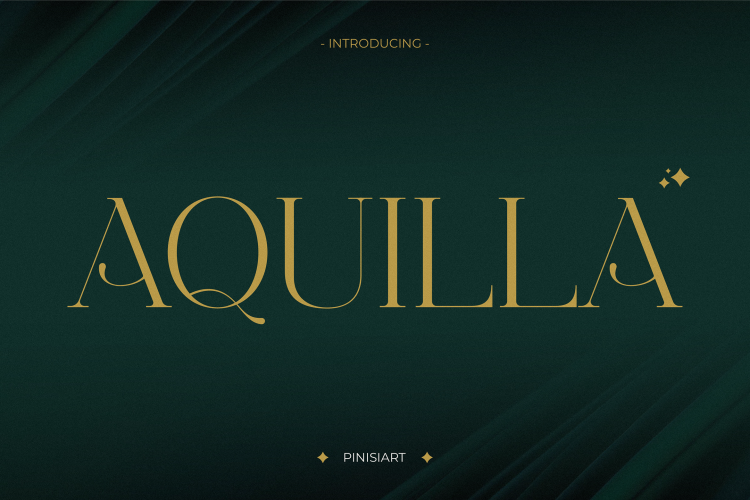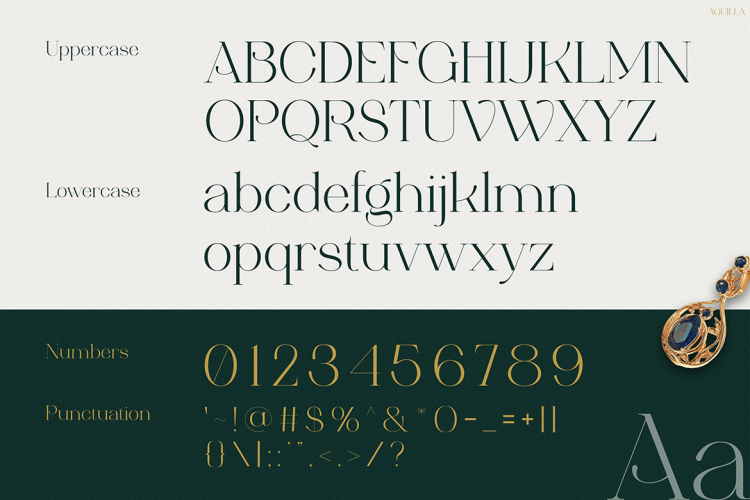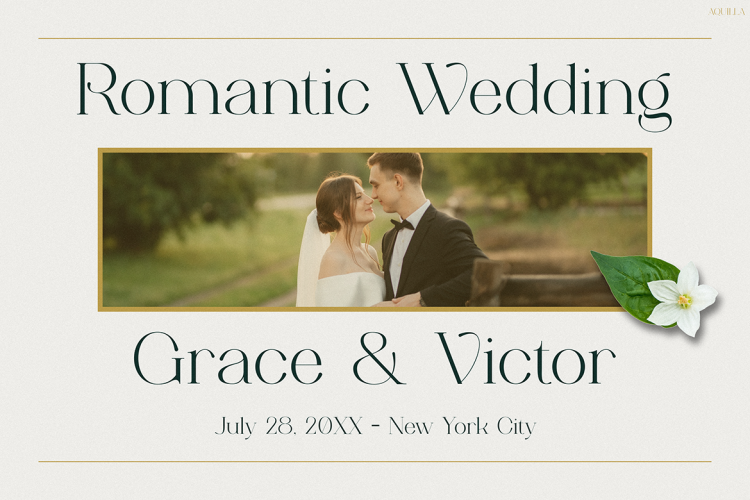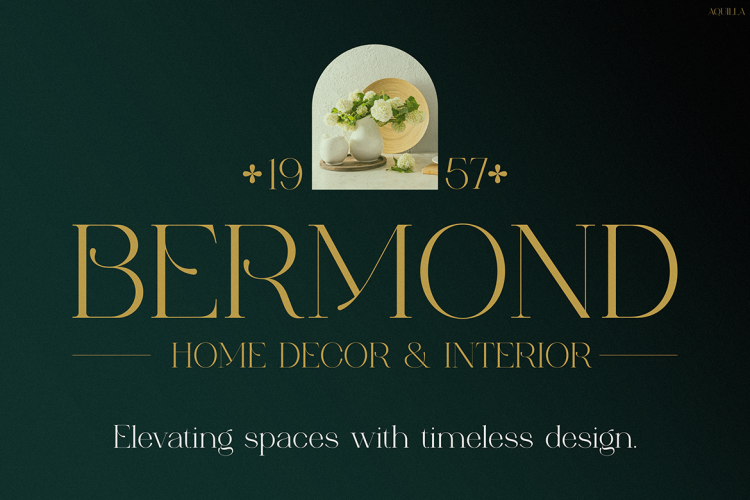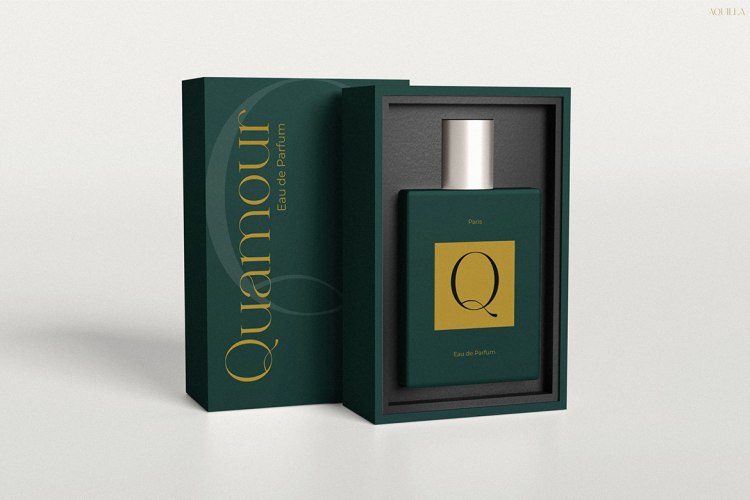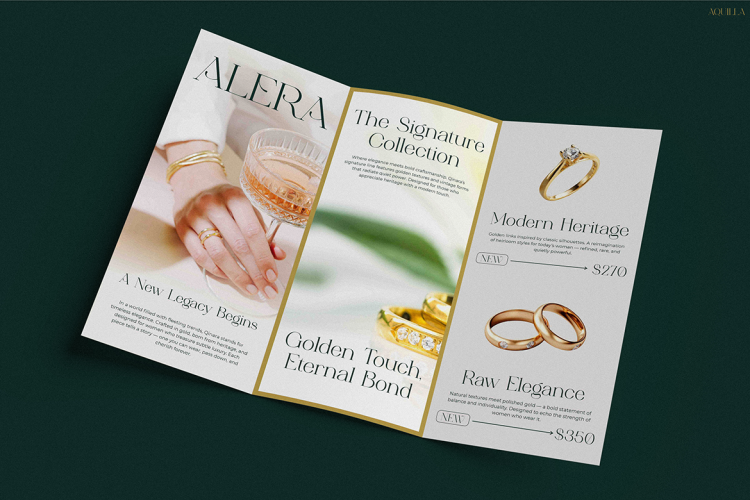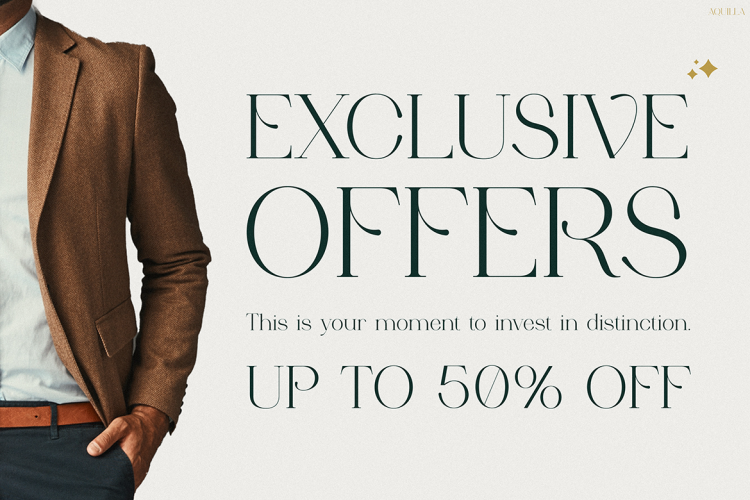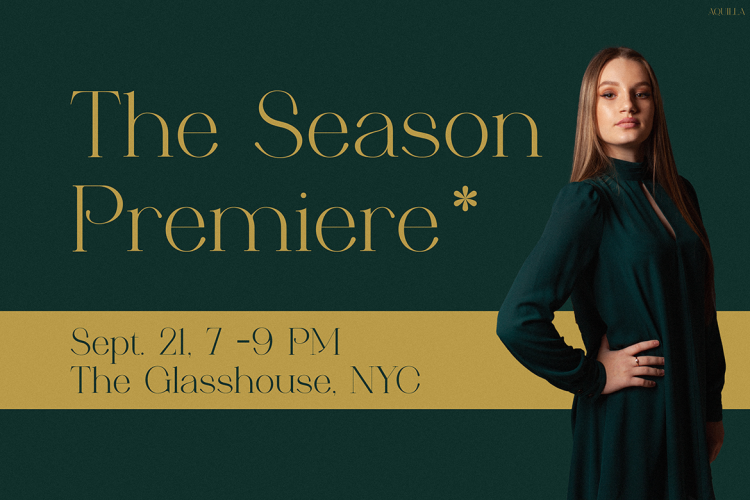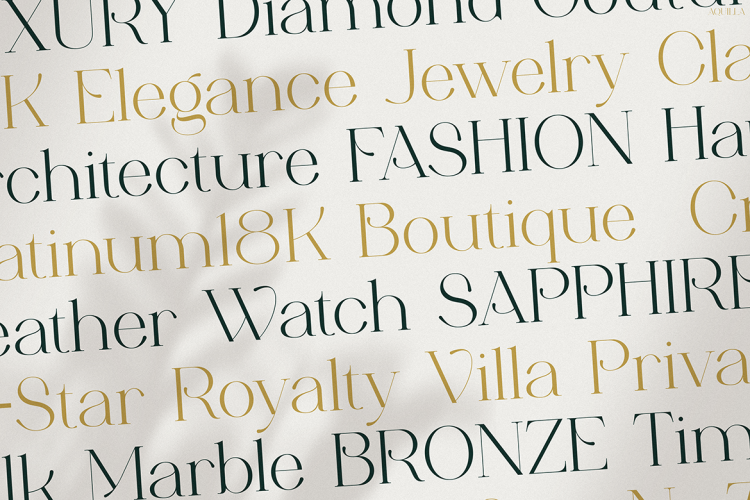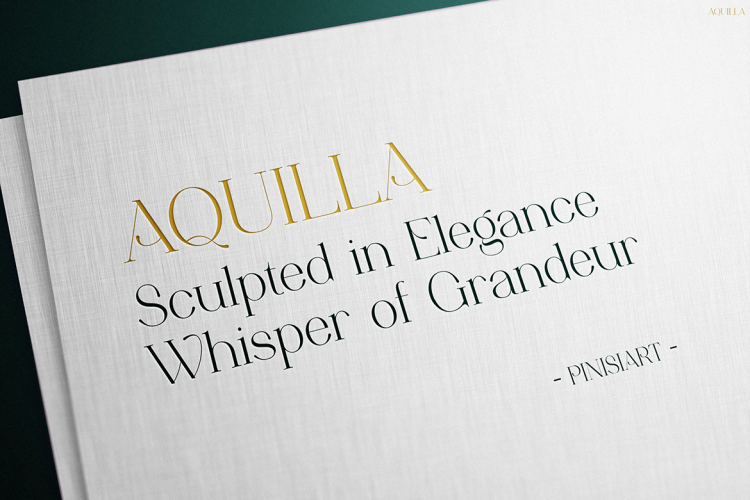
Instagram Font Aquilla โ Timeless Elegance in Every Letter
Instagram Font Aquilla is not just a typefaceโit is a statement of style and refinement. Each letter is carefully crafted, and therefore the font radiates beauty and balance. With high-contrast details, smooth curves, and sleek serifs, it creates an elegant harmony on every page. Moreover, its design blends classical influence with modern simplicity, making it timeless yet fresh. As a result, Aquilla brings a premium feel to branding, invitations, packaging, and social media graphics.
In addition, the font works equally well in digital spaces and print projects. It scales beautifully, whether on small Instagram story text or large billboard campaigns. Because of this flexibility, it offers consistent elegance across platforms. Therefore, Aquilla does not only decorate your textโit elevates the overall design and leaves a lasting impression.
Perfect For Creators and Brands
Who is Instagram Font Aquilla for?
Designers can rely on it to create logos, posters, and editorial layouts that stand out. Wedding planners and photographers will love how it enhances invitations, save-the-dates, and albums with a romantic, graceful touch. Moreover, luxury boutiques, fashion houses, and jewelers can use it to highlight sophistication in their branding and packaging. In addition, marketers and content creators will find Aquilla effective for Instagram posts, stories, and ad campaigns that must attract attention instantly.
Bloggers and lifestyle influencers can also use the font to create consistent, stylish content. Furthermore, interior designers, event organizers, and premium product makers can apply it to promotional materials to emphasize exclusivity and trust. As a result, Aquilla adapts seamlessly to many industries while always carrying an aura of elegance.
A Font That Defines Elegance
Instagram Font Aquilla is more than a design toolโit is an experience of timeless luxury. It blends heritage and modernity, and therefore it gives every project depth and personality. Moreover, it ensures your words do not fade into the background but instead speak with confidence. In conclusion, Aquilla is the right font for those who want to elevate their message and captivate their audience.